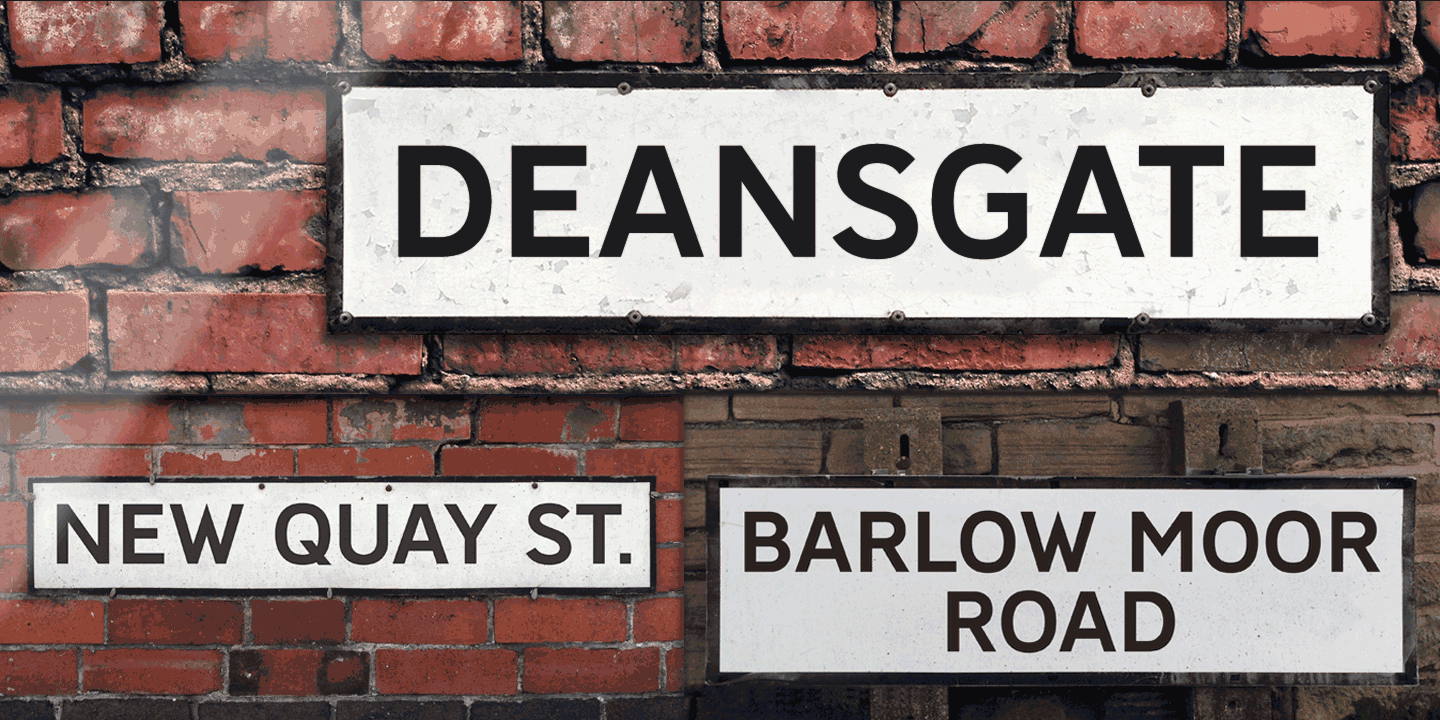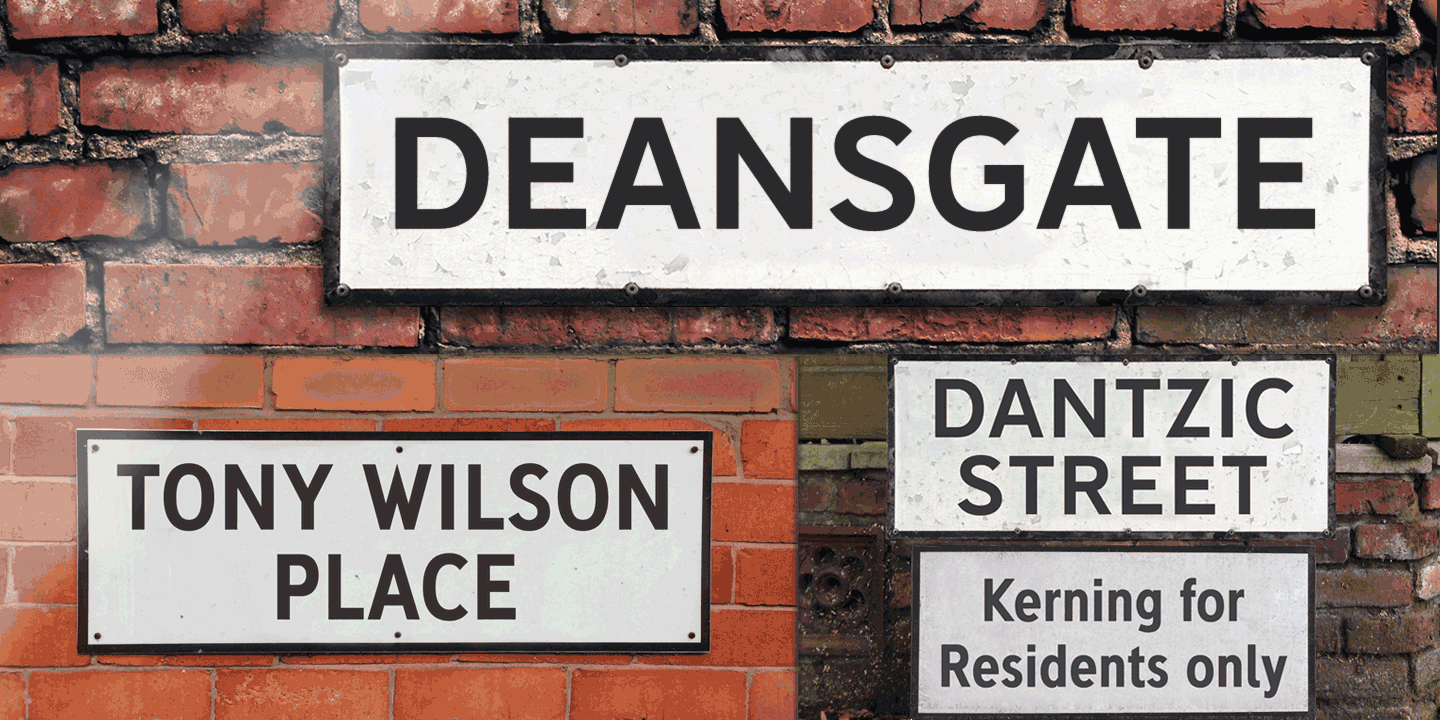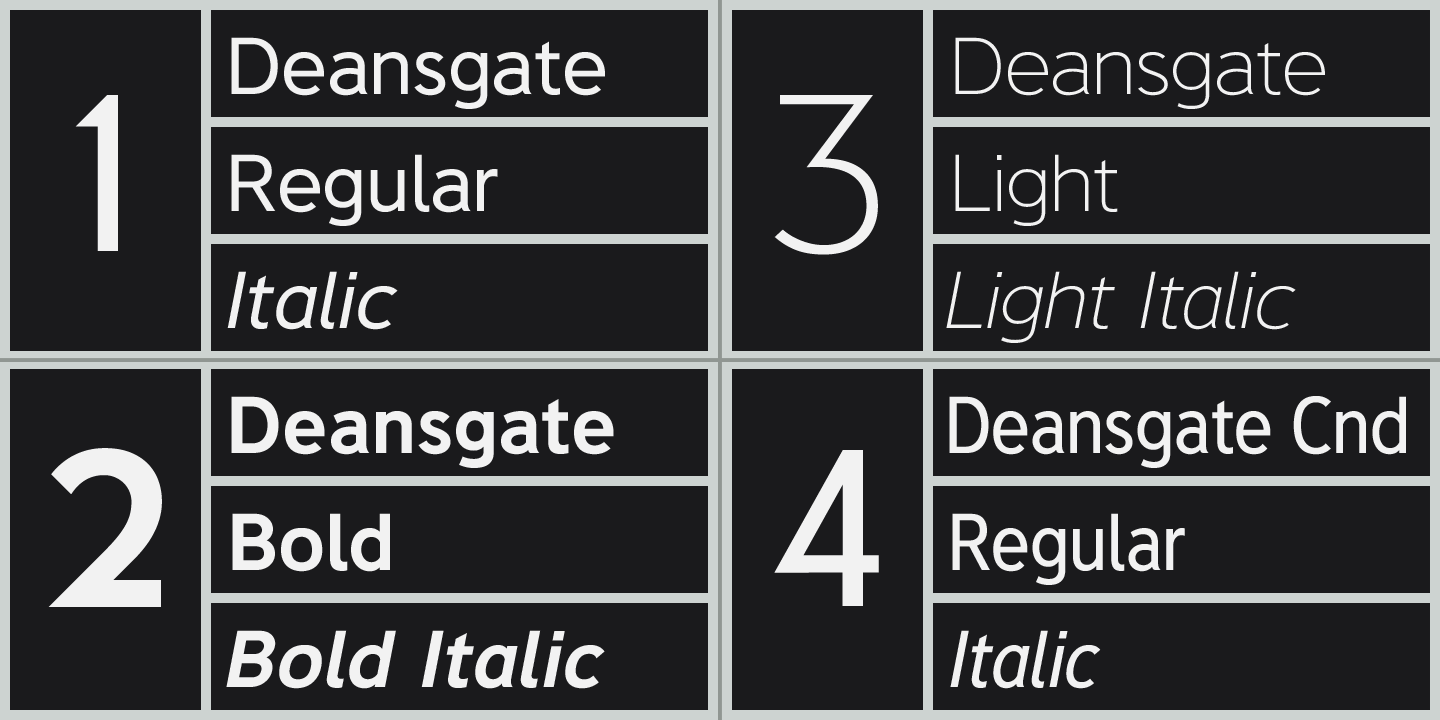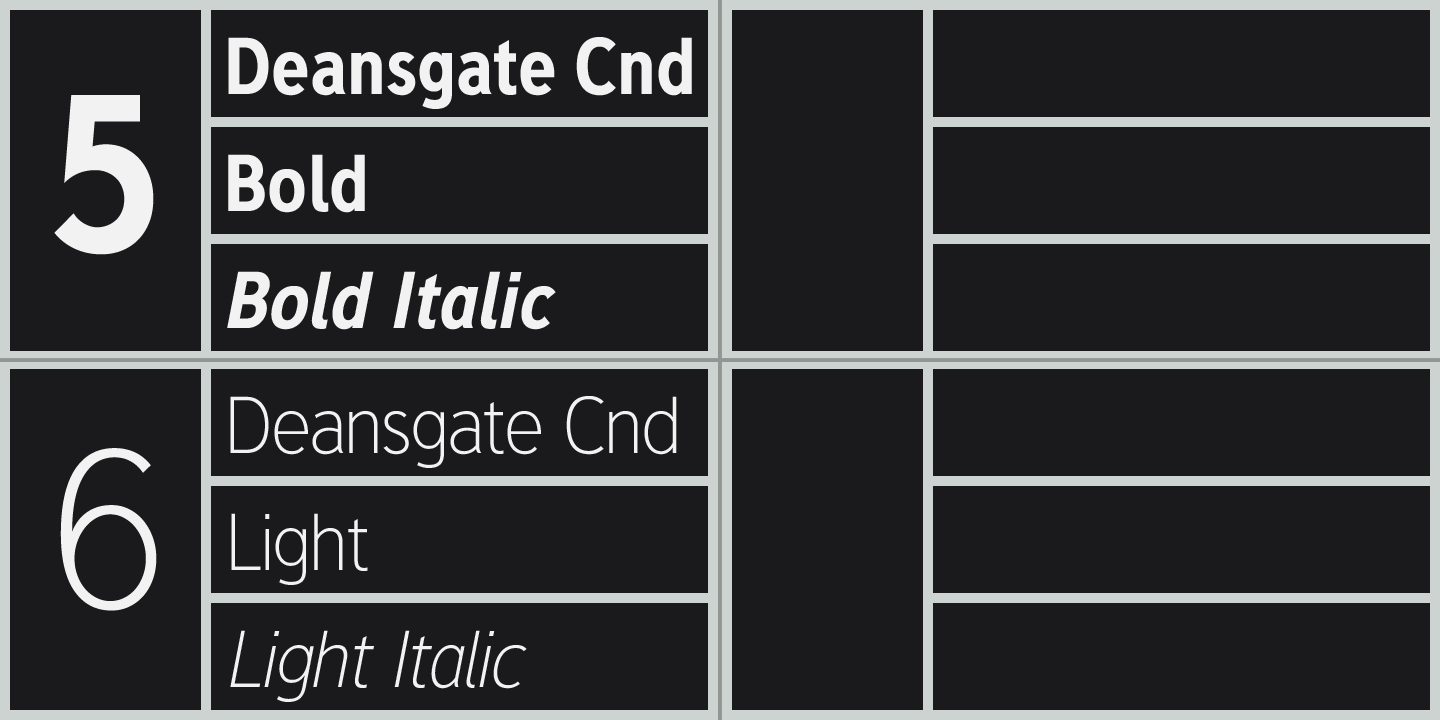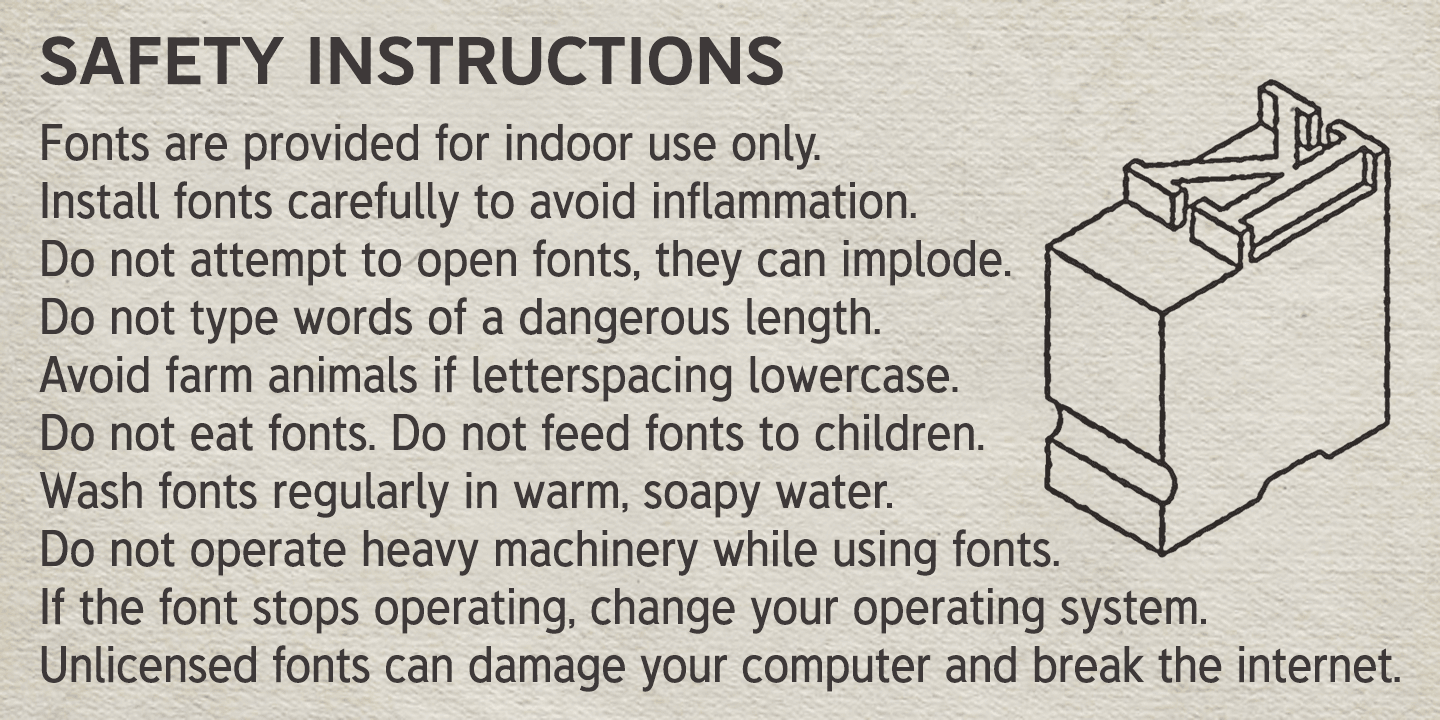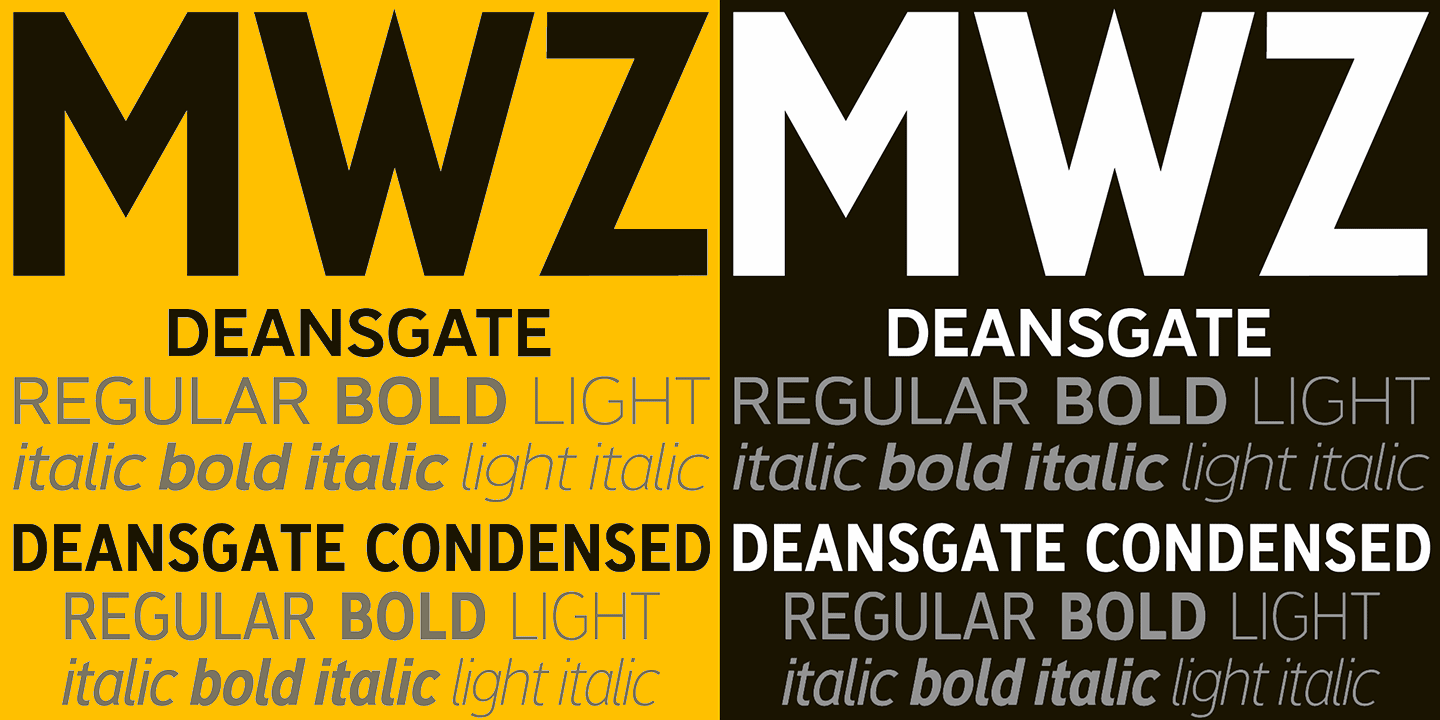
About Deansgate
Deansgate and Deansgate Condensed are based on the clearest and most distinctive of the sans-serif letterforms used on Manchester street nameplates, and easily identified by a pointy Z and pointed vertex/apex on M and W. The Bold weights of each family…